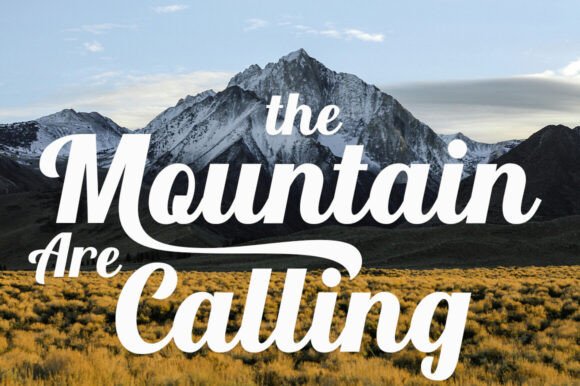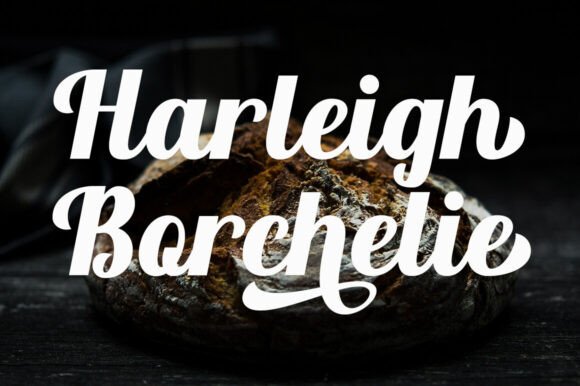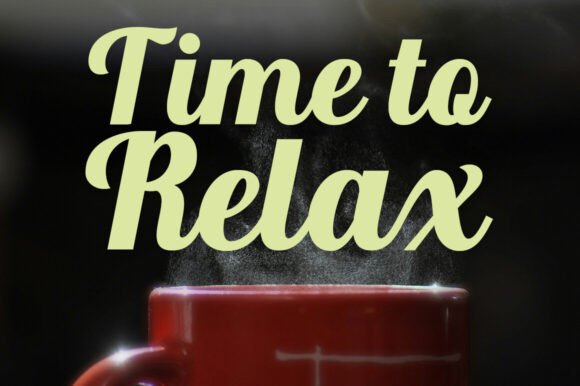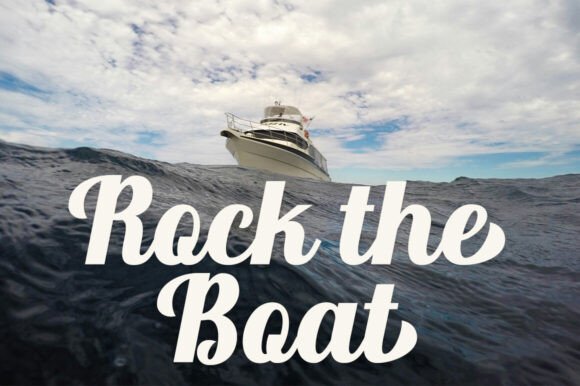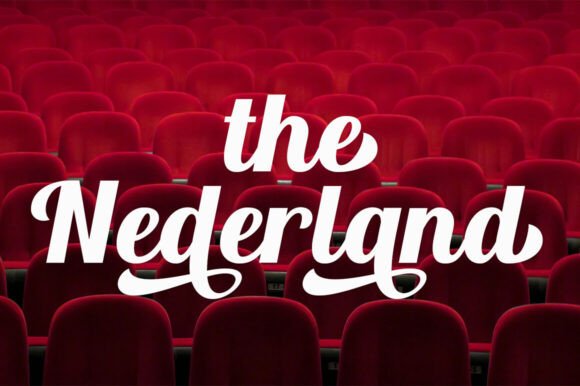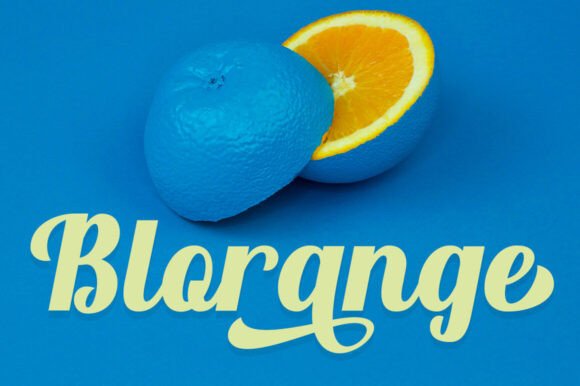
Introduction to Mathio Font
Have you ever found yourself staring at a blank canvas, waiting for that perfect spark to ignite your creative project? For many designers, the search for the ideal font can be a daunting task. But what if I told you that there’s a font that can add a burst of energy and personality to your designs? Enter the Mathio Font, a bold and expressive typeface that’s sure to capture attention.
With its thick strokes and dynamic curves, Mathio Font is the perfect choice for designers looking to add a touch of vibrancy to their work. Whether you’re working on a branding project or creating a headline that demands attention, this font is sure to deliver. And the best part? Mathio Font is available for free download, making it an accessible design resource for creatives of all levels.
As a valuable addition to any designer’s toolkit, Mathio Font offers a high quality, transparent background that’s perfect for a wide range of applications. Its playful loops and swashes add a touch of personality, while its overall structure maintains a sense of legibility. With Mathio Font, you’ll be able to convey a sense of individuality and confidence in your designs, making it a must-have resource for any creative project.
Key Features of Mathio Font
- High-quality, professional font suitable for creative projects, with a transparent background for seamless integration.
- Unique, modern design with a touch of elegance, perfect for adding a sophisticated look to any creative project.
- Includes a comprehensive character set, covering a wide range of languages and alphabets, making it a versatile design resource.
Honest Review: Mathio Font
As a designer, I’m always on the lookout for unique and high-quality design resources to elevate my creative projects. The Mathio Font is one such resource that caught my attention. Here’s my honest review.
- High-quality typography: The Mathio Font boasts crisp and clear typography, perfect for making a statement in your design.
- Transparent background: The font’s transparent background makes it easy to overlay on images or videos, adding a professional touch to your design.
- Limited character set: The Mathio Font has a limited character set, which may not be suitable for complex or lengthy text-based projects.
- No bold or italic styles: While the font is beautiful, it lacks bold and italic styles, which may limit its versatility.
Overall, the Mathio Font is a solid design resource that works well for creative projects requiring high-quality typography. While it has its limitations, I appreciate its unique style and free availability. I’d recommend it for designers looking to add a touch of elegance to their designs.
Tips for Getting the Most Out of Mathio Font
Use Mathio Font in creative projects that require a unique and stylish font. Experiment with different font sizes, colors, and styles to get the most out of this high-quality design resource. You can also use the font in combination with other design elements to create a visually appealing design.
Mathio Font is perfect for use in creative projects such as infographics, posters, and social media graphics. It’s also great for use in presentations, documents, and websites that require a unique and stylish font. The transparent background of the font makes it perfect for overlaying text on images or creating a design with a clean and minimalist look.